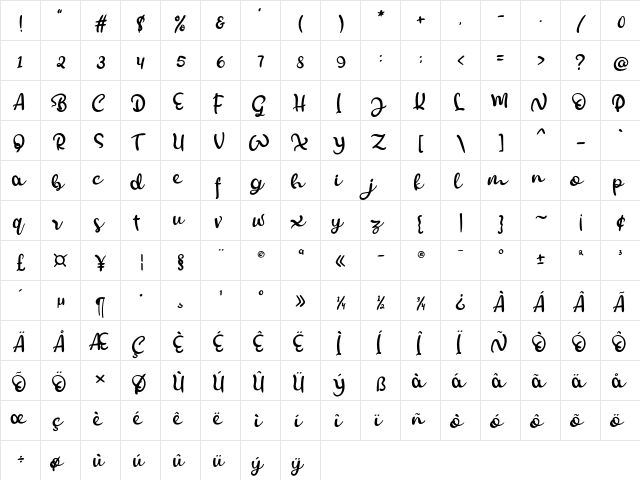
Smoothy Regular
Design Context for Smoothy Typeface
Smoothy is a composed and adaptable typeface that performs quietly and consistently across a wide range of design contexts.